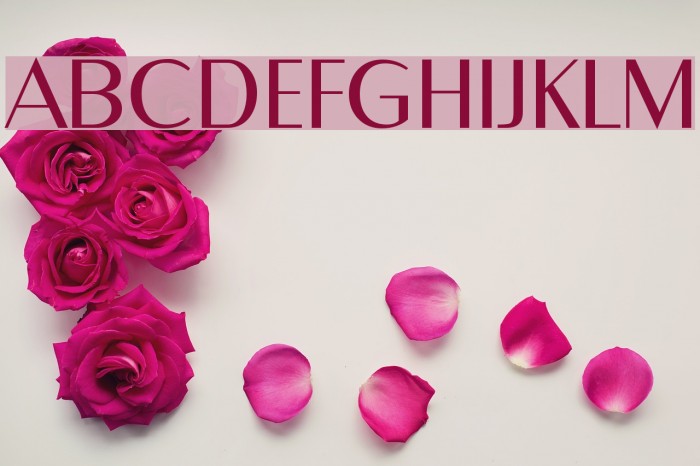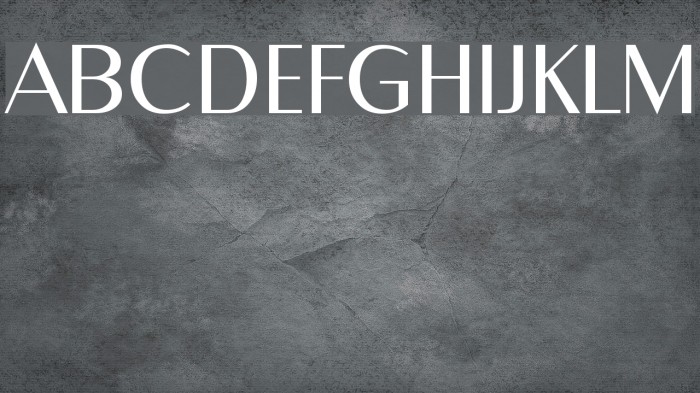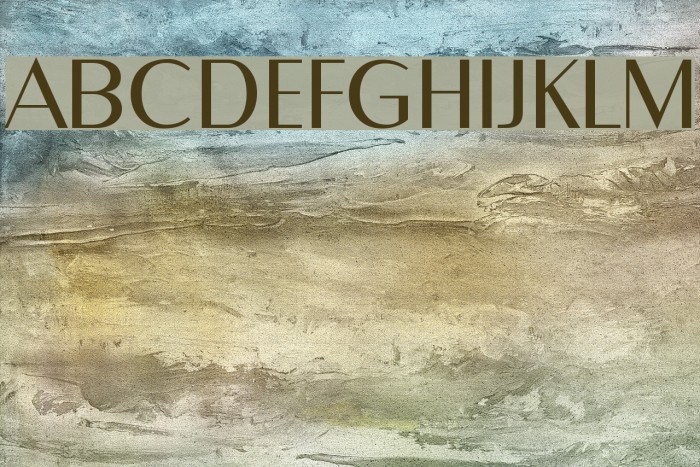
Metropol 95 Font
This font features a sleek and modern design with clean lines and a geometric structure. The uppercase letters are bold and assertive, while the lowercase letters maintain a consistent flow with subtle curves. The numerals are distinct and easily readable, complementing the overall aesthetic. Special characters are well-integrated, maintaining the font's cohesive look. The font's design is both functional and stylish, making it suitable for a variety of applications.
A modern, geometric font with clean lines and bold characters.
- Proposed Projects: Ideal for branding, advertising, and editorial design projects. Suitable for headlines, logos, and digital interfaces.
- Use Case: Headlines, Logos, Editorial design